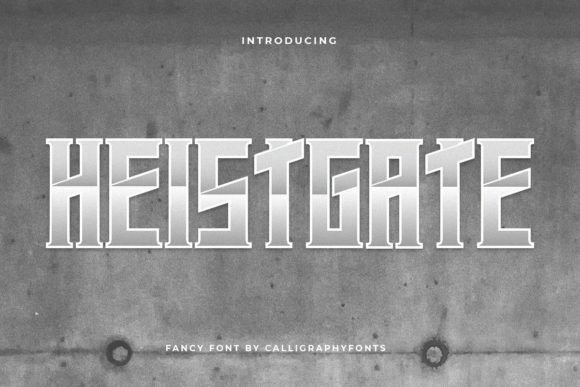
Behold, the Heistgate Font: A Masterpiece of Bold and Assertive Expression!
In a world of monotonous fonts, Heistgate emerges as a beacon of originality, a testament to the power of distinct typography. Its bold strokes and assertive presence command attention, demanding that your message be heard.
Heistgate is not merely a collection of letters; it is an expression of individuality, a reflection of your audacious spirit. Its lines dance upon the page, carrying your thoughts with a confidence that resonates with readers, leaving an indelible mark on their minds.
Picture your designs adorned with Heistgate's captivating allure. Imagine posters that shout, flyers that demand attention, and prints that leave a lasting impression. Heistgate is the ultimate tool for creating designs that speak volumes, conveying your message with a force that cannot be ignored.
Heistgate's versatility extends from the digital realm to the tangible world, seamlessly integrating into your print projects. Its bold strokes retain their impact, ensuring that your words carry the same weight and authority in print as they do on screen.
With Heistgate at your disposal, the possibilities are infinite. Unleash your creativity and discover a font that complements your unique style, transforming your designs into captivating works of art.